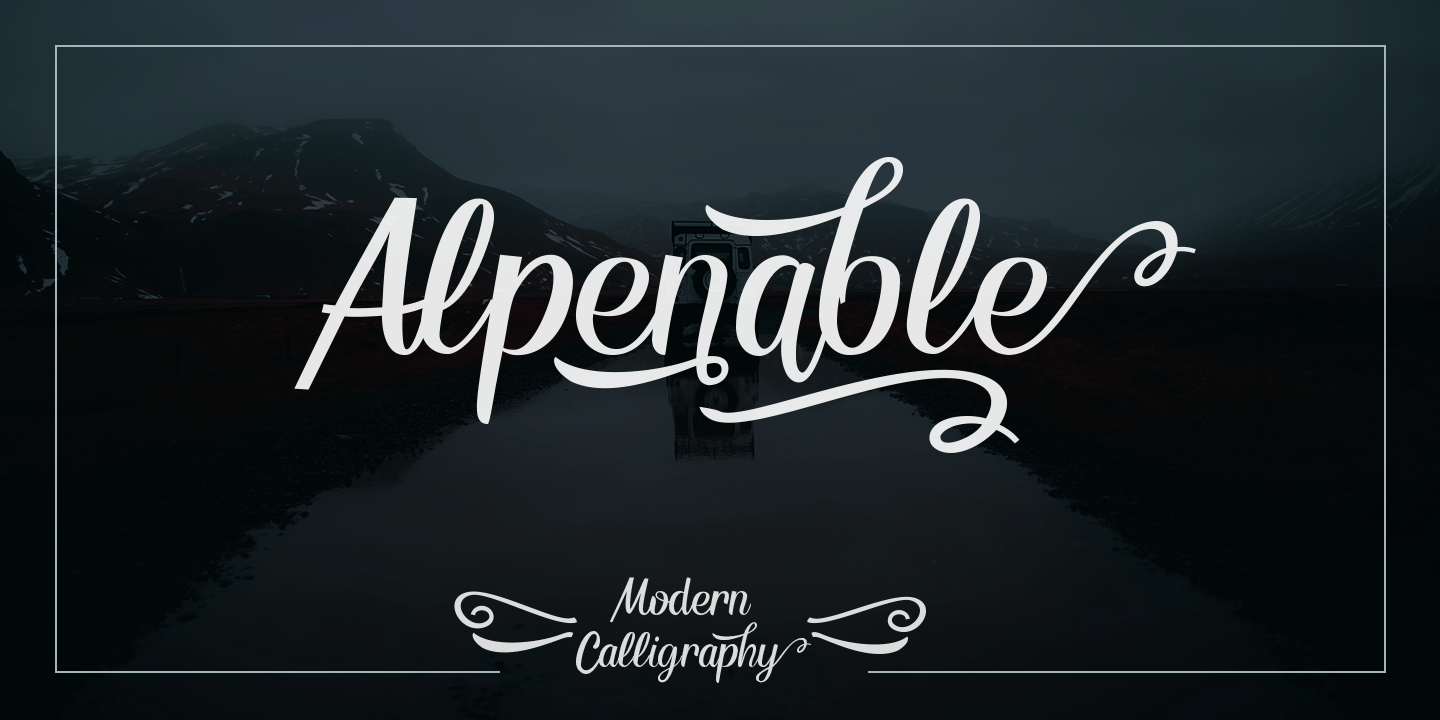
Elevate your designs with Alpenable Script Font Free Download – a graceful, flowing script that blends calligraphic elegance with contemporary sophistication. This beautifully crafted typeface features smooth connections and delicate swashes, perfect for projects needing refined artistry with modern readability.
Why Alpenable Script Font Stands Out
Alpenable Script Font Free Download delivers:
Natural, effortless letter connections
Multiple stylistic alternates for customization
Perfect balance of elegance and approachability
Versatile styling from formal to casual
Alpenable Script Font Free Download Technical Features:
Complete uppercase and lowercase characters
Extensive swash and terminal variations
Sophisticated Applications:
Wedding invitations
Luxury brand identities
Beauty product packaging
Feminine logo design
Editorial quote graphics
Calligraphy Tip: Use with generous letter spacing (120-150%) for maximum elegant flow!